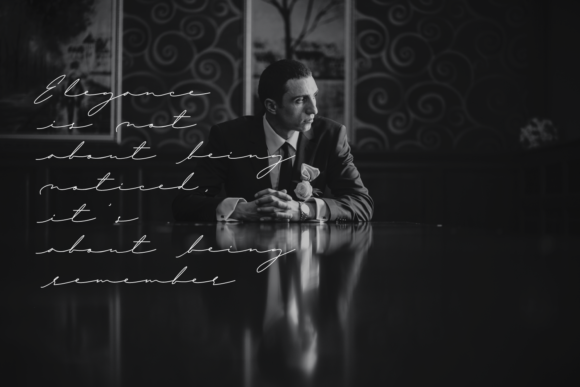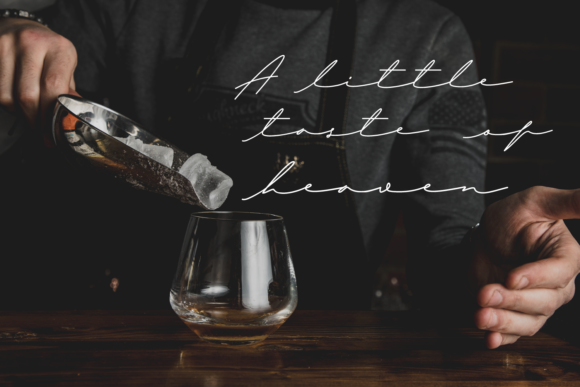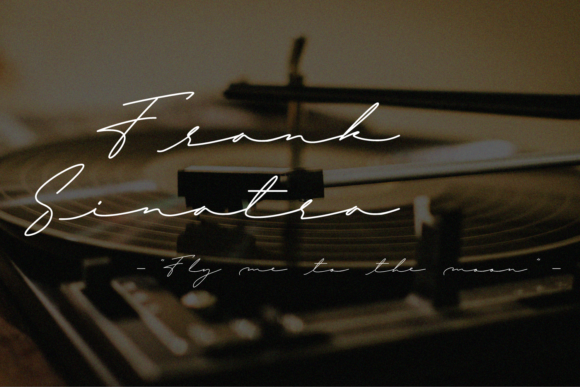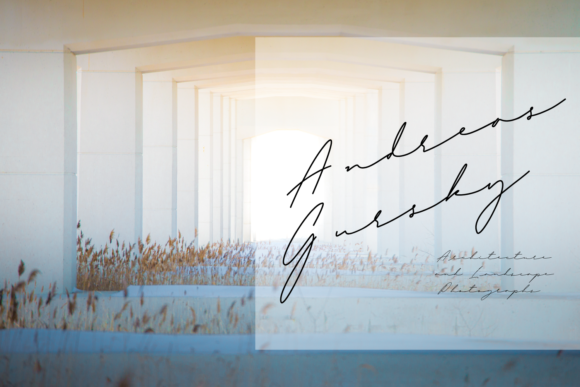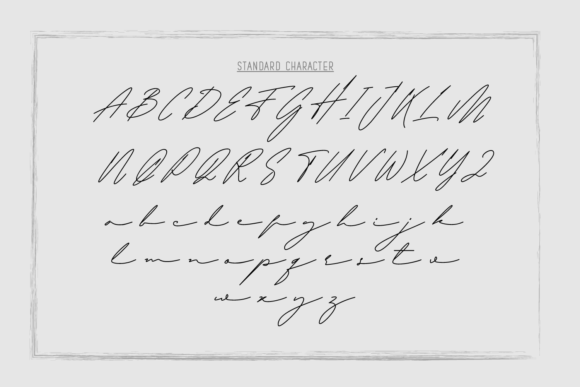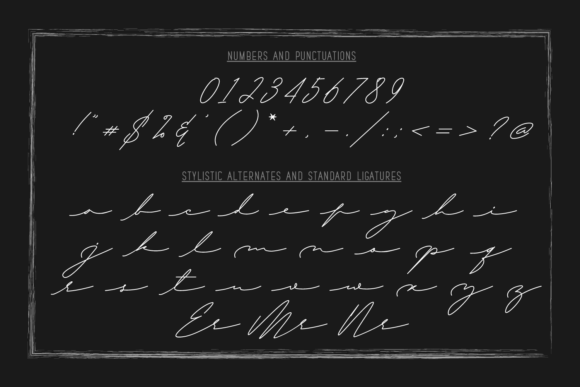
Introducing Chalysta Font: The Epitome of Elegance and Sophistication
In the realm of typography, few fonts manage to convey the essence of elegance and sophistication as effectively as Chalysta. This exquisite, thin, and flowing handwritten font has captured the hearts of designers and crafters worldwide, and for good reason. Chalysta’s unique charm and versatility make it an ideal choice for a wide range of design projects that demand a personalized touch.
The Characteristics of Chalysta Font
Chalysta is distinguished by its delicate and refined appearance. Its thin strokes and flowing lines evoke a sense of fluidity and movement, lending an air of dynamism to any design. The font’s exquisite craftsmanship is evident in its precise letterforms, which exude a sense of luxury and refinement. Whether used in digital or print formats, Chalysta’s beauty shines through, making it a versatile addition to any designer’s toolkit.
Ideal Applications for Chalysta Font
Chalysta’s versatility is one of its most compelling attributes. This font is perfectly suited for a variety of design projects that require a touch of elegance and sophistication. Some of the ideal applications for Chalysta include:
- Wedding Invitations: Chalysta’s delicate and refined appearance makes it an ideal choice for wedding invitations, adding a touch of romance and whimsy to the big day’s announcements.
- Thank You Cards: Express gratitude in style with Chalysta, which lends a sense of warmth and sincerity to thank you cards and other correspondence.
- Weddings and Events: From wedding programs to event invitations, Chalysta’s elegant appearance makes it a popular choice for any celebration or gathering.
- Greeting Cards: Add a touch of sophistication to greeting cards for special occasions, such as birthdays, anniversaries, and holidays.
- Logos and Branding: Chalysta’s unique charm makes it an excellent choice for logos and branding projects that require a distinctive and memorable identity.
Why Designers and Crafters Love Chalysta Font
Designers and crafters have fallen in love with Chalysta for several reasons:
- Elegance: Chalysta’s refined appearance adds a touch of elegance to any design, making it perfect for projects that demand sophistication.
- Versatility: Chalysta’s versatility knows no bounds, making it suitable for a wide range of design projects, from digital to print.
- Personalized Style: Chalysta’s unique charm allows designers to add a personalized touch to their creations, setting them apart from more generic fonts.
- Easy to Read: Despite its delicate appearance, Chalysta is remarkably easy to read, making it an excellent choice for body text and other applications where legibility is crucial.
Tips for Using Chalysta Font Effectively
To get the most out of Chalysta, consider the following tips:
- Pair with Bold Fonts: Combine Chalysta with bold fonts to create striking contrasts and add visual interest to your designs.
- Experiment with Colors: Chalysta looks beautiful in a range of colors, so don’t be afraid to experiment and find the perfect hue for your design.
- Use for Headings and Titles: Chalysta’s elegant appearance makes it perfect for headings and titles, where it can add a touch of sophistication and refinement.
In conclusion, Chalysta font is a true gem in the world of typography. Its exquisite appearance, versatility, and elegance make it an ideal choice for designers and crafters seeking to add a touch of sophistication to their creations. Whether used in wedding invitations, logos, or greeting cards, Chalysta is sure to leave a lasting impression.